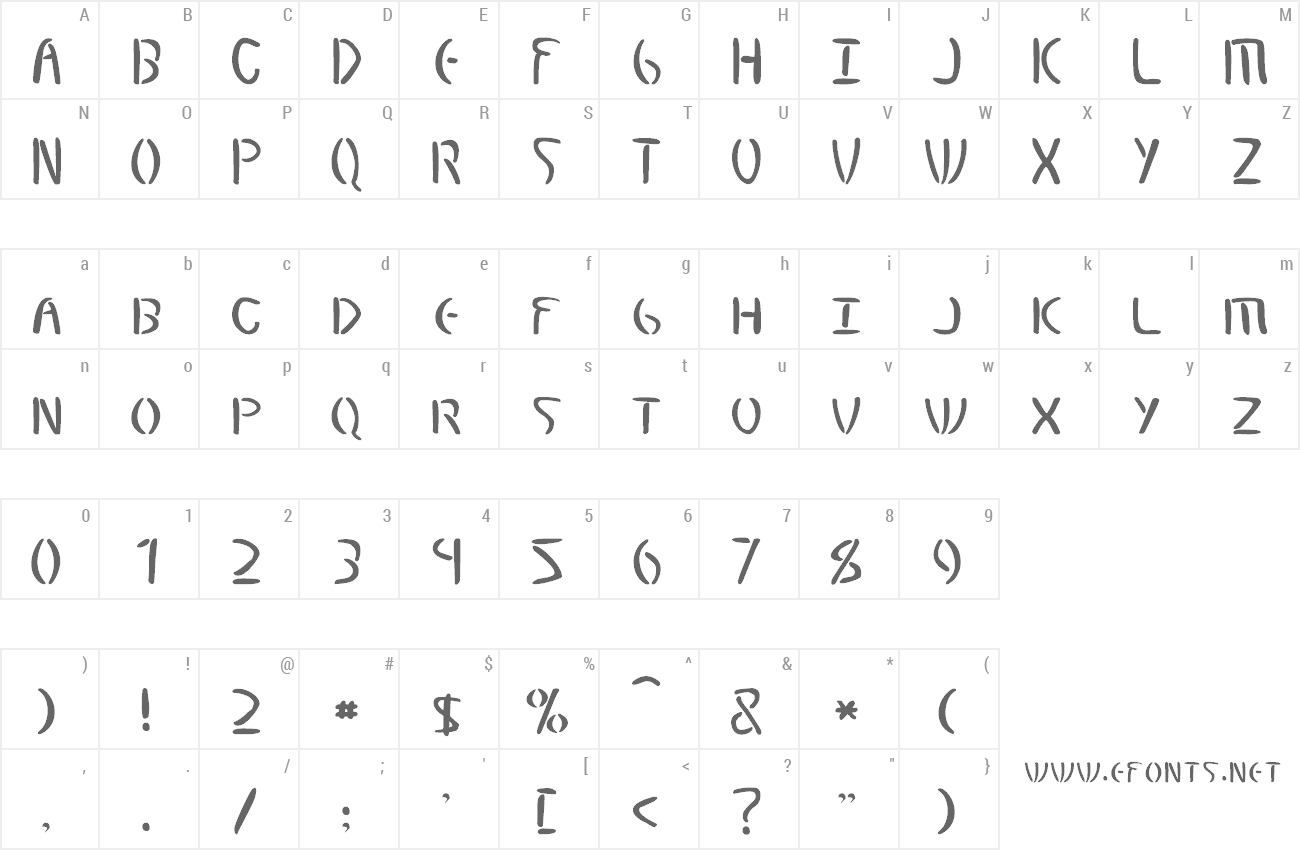
| Font name: | Elminster |
| Author: | Pixel Sagas |
| Note by Pixel Sagas | |
Elminster is a English-readable ‘ancient rune’ script based on the title logo of TSR’s classic Forgotten Realms setting for their second-edition Dungeons and Dragons game. This face Includes full alphabet, extended punctuation, and euro. Version 1.10 - Error corrections and cleanup |